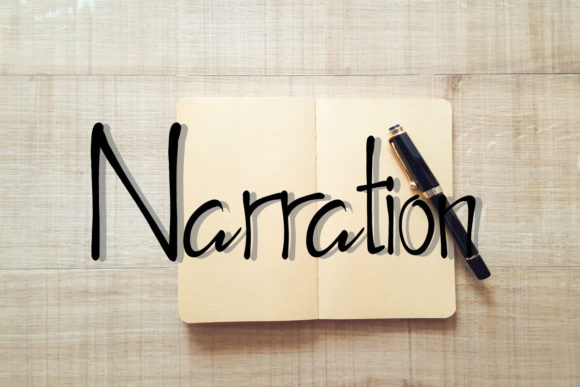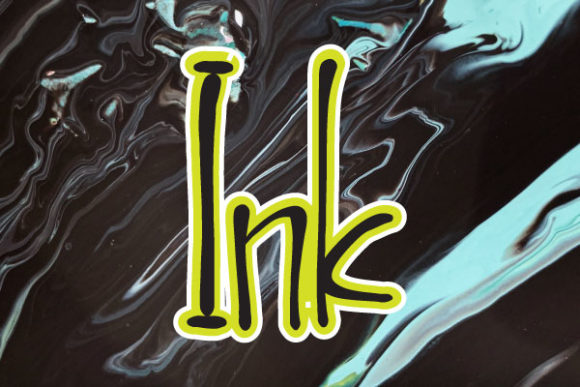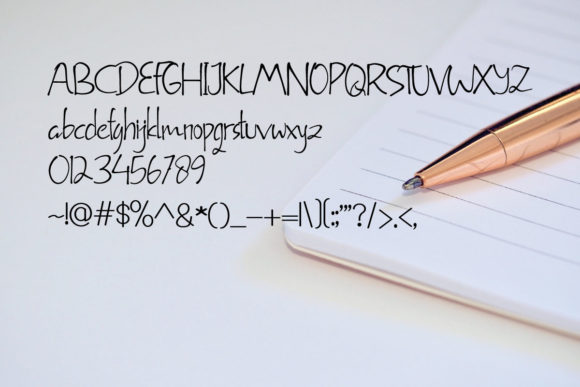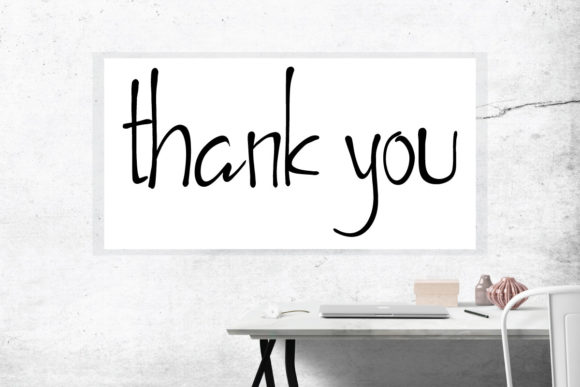
The Story Font
About The Story Font
The Story is a stylish and delicate handwritten font. It has a clean, thin and smooth vibe and it will be a hit for any design that you want to add it to.